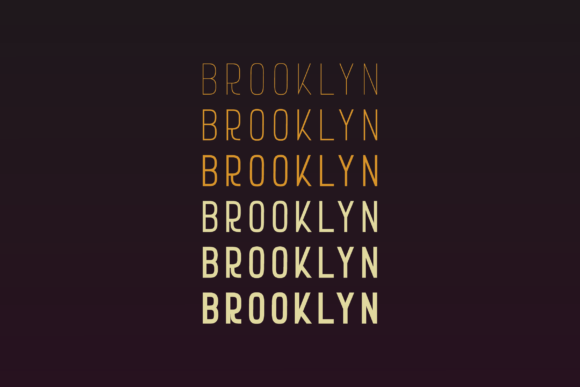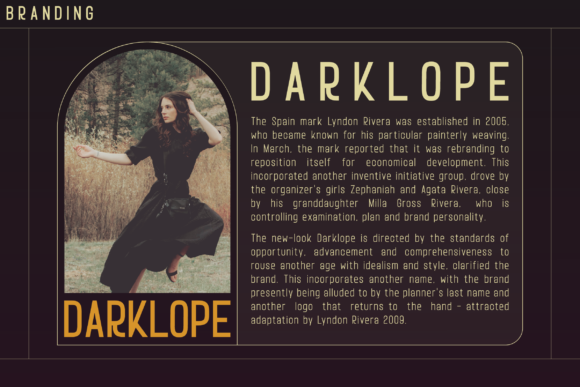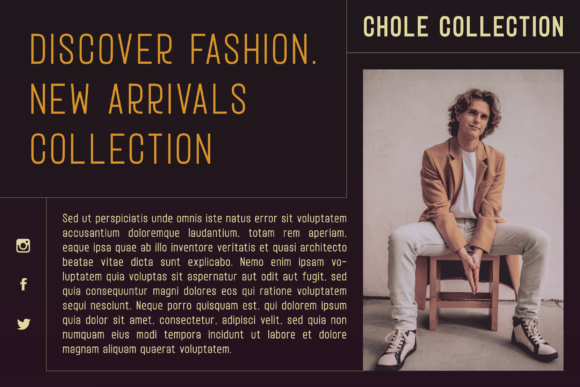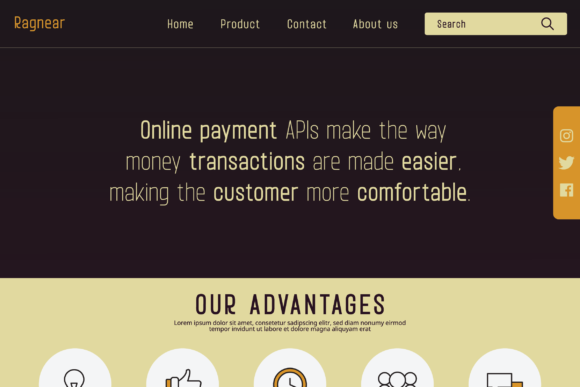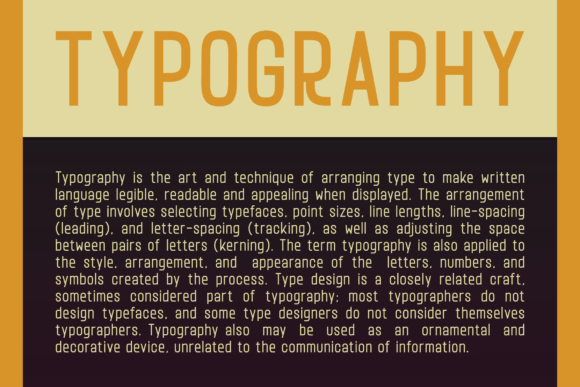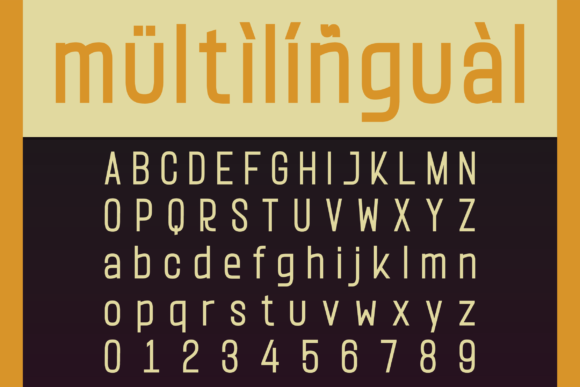
Introduction to Ragnear Normal Version Font
Have you ever been in a rush to finish a creative project, staring blankly at your computer screen, trying to find the perfect font to bring your design to life? The pressure is on, and you need something that exudes modern style and sophistication. That’s where the Ragnear Normal Version Font comes in – a clean sans serif font that’s sure to elevate your design game.
Whether you’re working on a website, landing page, or magazine, this versatile font is the perfect design resource for any project. Its unique letterforms give off a strong and charismatic impression, making it an ideal choice for logos, logotypes, and greetings. With its high quality and modern aesthetic, the Ragnear Normal Version Font is a valuable addition to any designer’s toolkit.
Key Features of Ragnear Normal Version Font
- High-quality design resource with a unique and creative style, perfect for any project.
- Includes a wide range of characters, making it suitable for use in various languages and creative projects.
- Designed to be versatile and easy to use, making it a great addition to any design resource collection.
Honest Review: Ragnear Normal Version Font
- ✨ Beautiful, modern design that’s perfect for creative projects
- ⚠️ Limited font variations, which might make it less versatile for some designers
- ⚠️ Not ideal for projects that require a lot of font customization
Ragnear Normal Version Font is a free design resource ideal for creative projects requiring a high-quality, modern font. This versatile font can be used for a variety of purposes, from branding to typography, and is easily downloadable.
Ragnear Normal Version Font is suitable for:
- Creating modern logos and branding materials
- Designing text overlays and graphics for videos
- Adding a touch of sophistication to presentations and documents